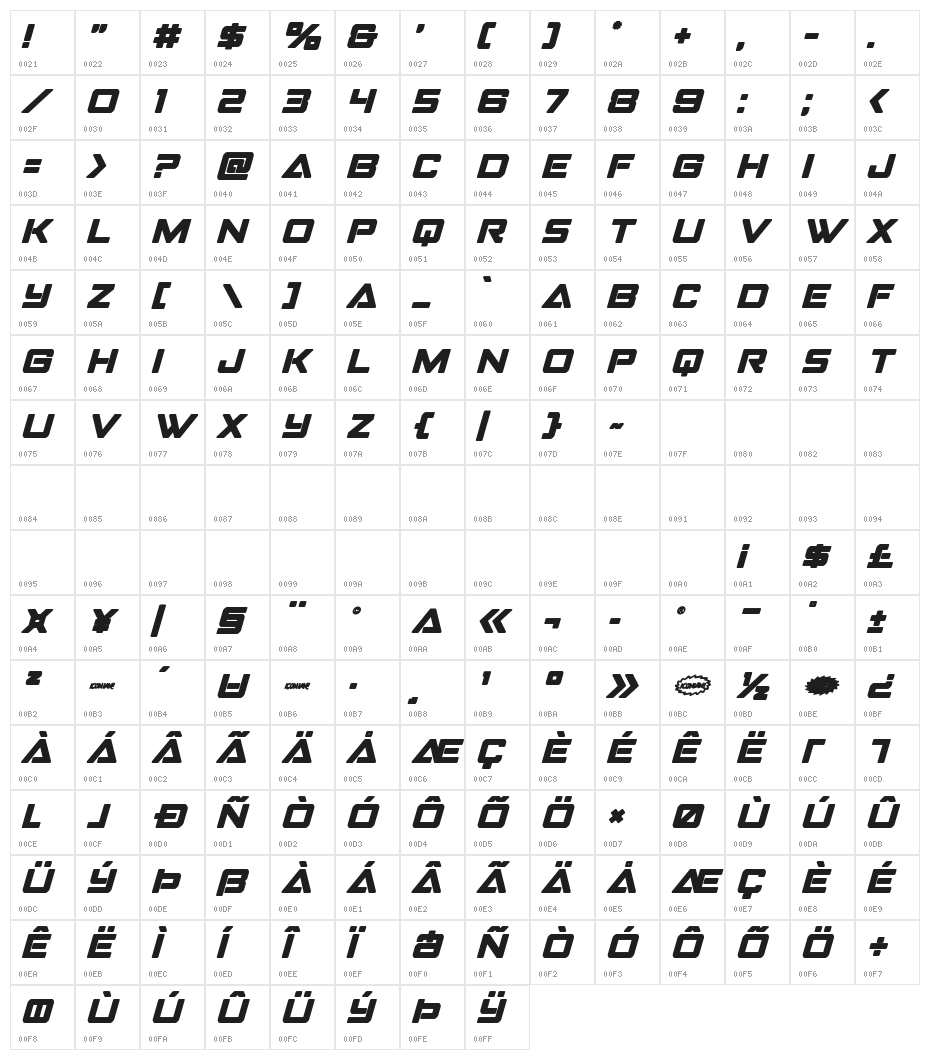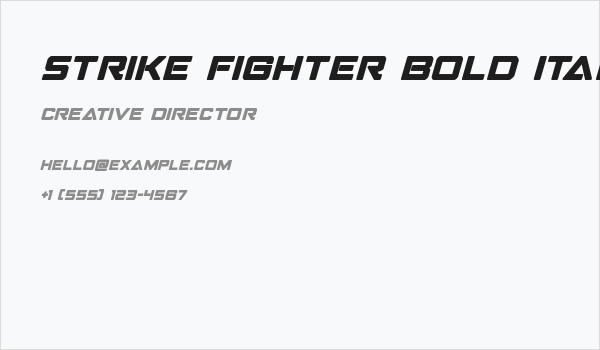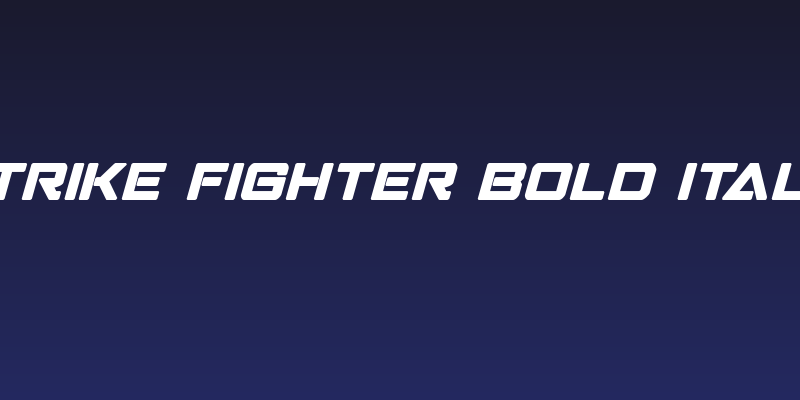
Strike Fighter Bold Italic Font
Strike Fighter Bold Italic Description
This font features a bold and italicized style with a futuristic and dynamic appearance. The characters are designed with sharp angles and a forward-leaning slant, giving a sense of motion and speed. The bold weight enhances its strong presence, making it ideal for impactful designs. The uppercase and lowercase letters maintain a consistent style, with a uniform stroke width that contributes to its modern aesthetic. The numerals and special characters are crafted to match the overall theme, ensuring a cohesive look across all elements.
| Proposed Projects | Ideal for projects requiring a modern and energetic feel, such as sports branding, automotive advertisements, video game titles, and technology-related designs. |